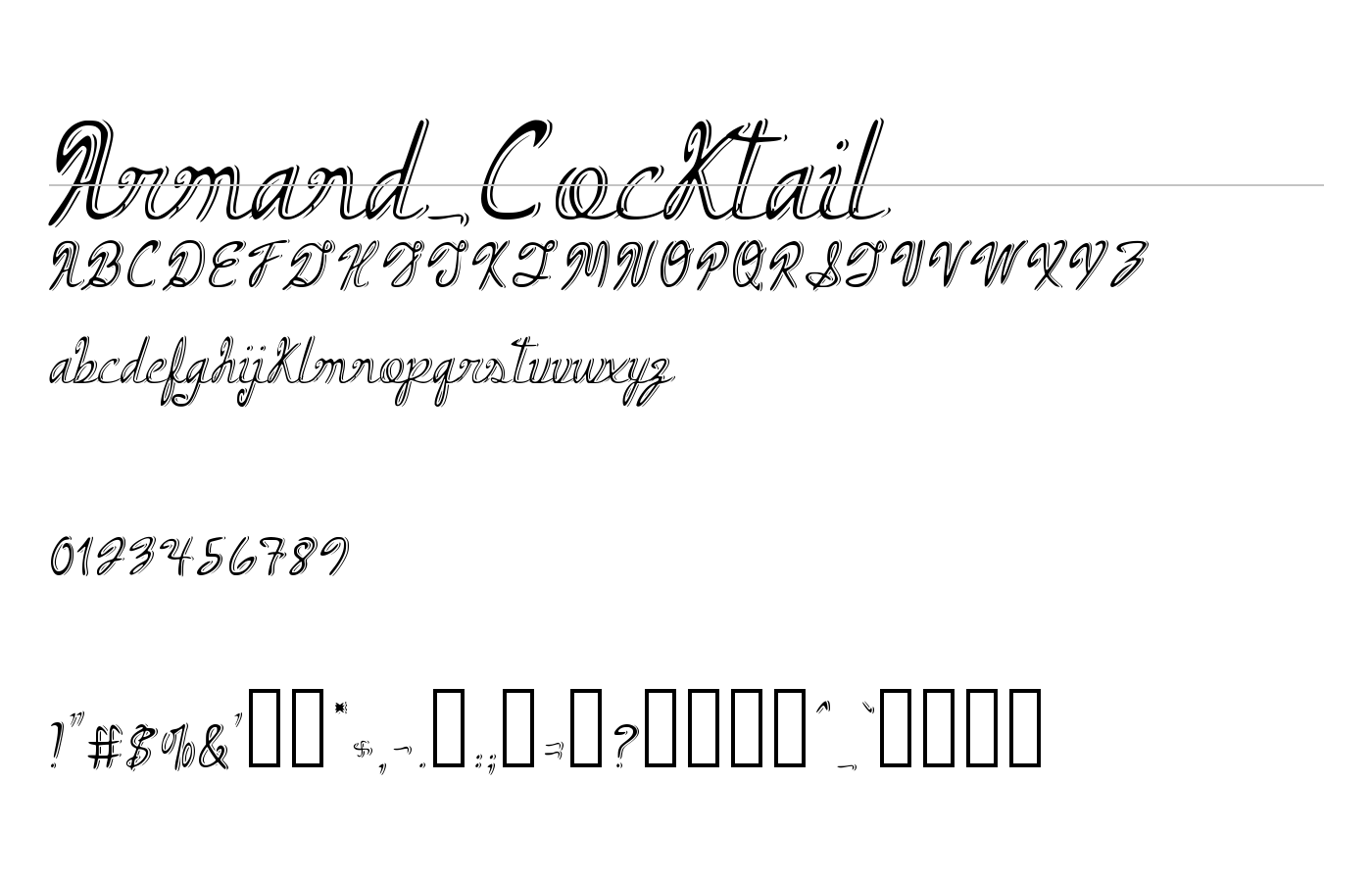
Armand Cocktail is a distinctive script font with elegant, flowing lines that combine a hand-drawn charm with a refined, vintage flair. Its delicate strokes are slightly varied in thickness, giving it a lively and dynamic feel, perfect for adding a personal, stylish touch to invitations, branding, and headlines. This font works beautifully in contexts where a sense of sophistication and artistic flair is desired.
Armand_Cocktail Font
About Armand_Cocktail Font